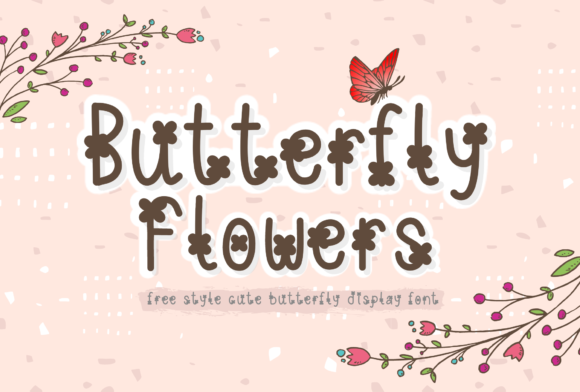
The Delight of Butterfly Flowers Font
Do you remember the thrill of designing a children’s book cover or a cartoon character’s logo? The excitement of bringing a playful idea to life, knowing it will put a smile on someone’s face? For many designers, this is the ultimate creative high. And what better way to capture that whimsical spirit than with a font that’s as sweet as it is charming?
Enter the delightful Butterfly Flowers Font – a display font that’s as lovely as it is versatile. With its adorable flowers adorning each character, this font is perfect for adding a touch of magic to your designs. Whether you’re working on a children’s game, a cartoon, or just a project that needs a little extra charm, Butterfly Flowers Font is an amazing choice. Its value lies in its ability to evoke a sense of wonder and joy, making it a must-have for designers who want to add a little extra magic to their work.
Key Features of Butterfly Flowers Font
- Unique Characteristics: Butterfly Flowers Font features a whimsical, hand-drawn design with intricate details and ornaments, perfect for adding a touch of elegance and sophistication to any project.
Butterfly Flowers Font Review
Overall, I’m a bit mixed on this font, but let’s dive in and see what works and what doesn’t.
- Unique aesthetic: Butterfly Flowers Font has a charming, whimsical feel to it. It’s perfect for adding a touch of elegance to your designs without being too over-the-top.
- Good for watercolor-inspired designs: The subtle, hand-painted look of this font makes it ideal for watercolor-inspired artwork or designs.
- Wide range of languages supported: Butterfly Flowers Font supports a wide range of languages, making it a versatile choice for global designs.
- Limited legibility at smaller sizes: While this font looks lovely at larger sizes, it can become difficult to read at smaller sizes. This might be a concern for designs that require smaller font sizes.
- No bold or italic variants: If you’re looking for a font with bold or italic variants, you might be out of luck with Butterfly Flowers Font.
While Butterfly Flowers Font has its limitations, I think it’s a great choice for designers who want to add a touch of whimsy and elegance to their designs. Just be mindful of the font size and the need for bold or italic variants.
The Butterfly Flowers Font is perfect for:
- Floral-themed designs and illustrations
- Gift tags and labels
To get the most out of the Butterfly Flowers Font, try the following:
- Pair it with pastel colors for a soft, whimsical look.
- Use it in combination with floral illustrations or graphics.